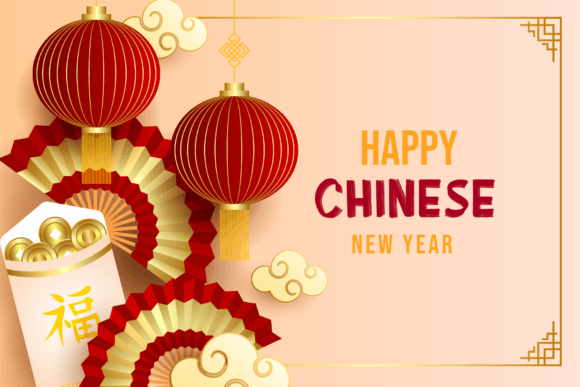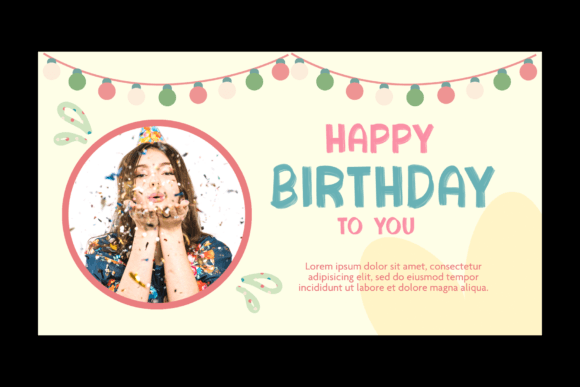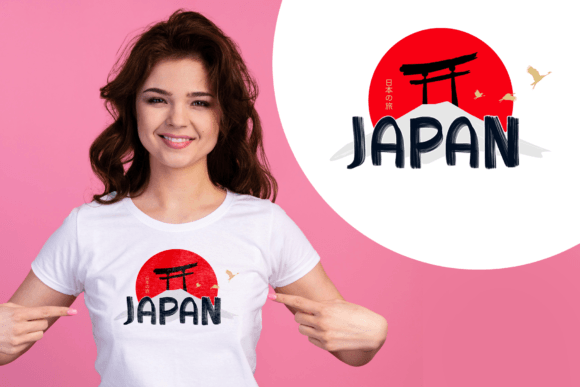
About Sunshine Font
“Sunshine” is not just a font; it’s a handwritten Bitmap typeface designed to bring a unique and detailed touch to your creative ideas. Enabled in programs like Photoshop, this font allows you to see the details of the brushes, making it ideal for writing and adding a distinctive flair to your designs.
The beauty of “Sunshine” lies in its handwritten Bitmap design. Each letter is crafted to showcase the details of the brushes, contributing to an overall aesthetic that is both unique and visually interesting. This makes it an ideal choice for projects that demand a font with a distinctive and detailed appeal.
The versatility of “Sunshine” becomes evident in its adaptability to various design contexts. Whether used in digital graphics to showcase detailed brush strokes or in creative projects to add a handwritten touch, this font confidently fits into a diverse range of design applications.
Imagine “Sunshine” gracing posters, where its detailed Bitmap script adds an artistic and unique touch. Picture it in digital artwork, creating a visually interesting and detailed atmosphere. “Sunshine” becomes a font that not only looks creative but also enhances the overall visual appeal of your designs.
In summary, “Sunshine” is not just a font; it’s a design asset that brings a detailed and artistic touch to your creative projects. Let it be the choice for adding uniqueness to your digital graphics, posters, and more. With “Sunshine,” every project becomes an opportunity to showcase the beauty of handwritten typography with a detailed and distinctive twist.